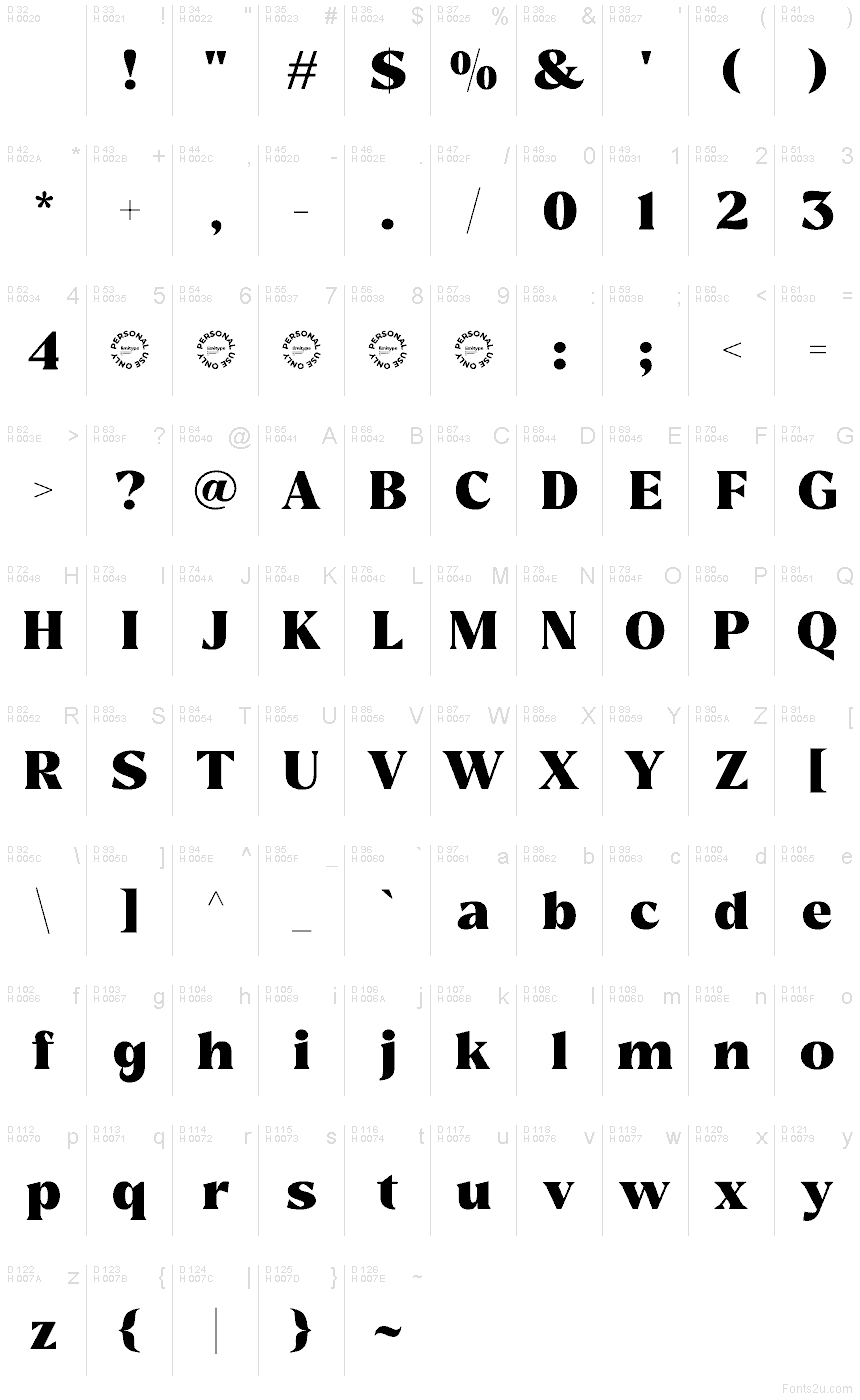
Reshiga Demo
Reshiga font by Limitype is a free bold serif font. It stands out with velvety, inky heft and plush, rounded serifs that flare into sharp, sculpted cuts—soft at first glance, confidently chiseled up close. The generous curves and tight rhythm create a steady pulse, while the high contrast gives headlines a rich, printed-on-cotton feel that holds up at big sizes without turning clumsy.
Using Reshiga, your work gains drama without shouting. This free font shines on boutique logos, editorial headlines, book covers, gourmet packaging, restaurant menus, and beauty campaigns. It loves spacious layouts and rewards slightly tighter tracking. Pair it with a lean grotesk or geometric sans for body copy to let Reshiga’s warmth do the heavy lifting.